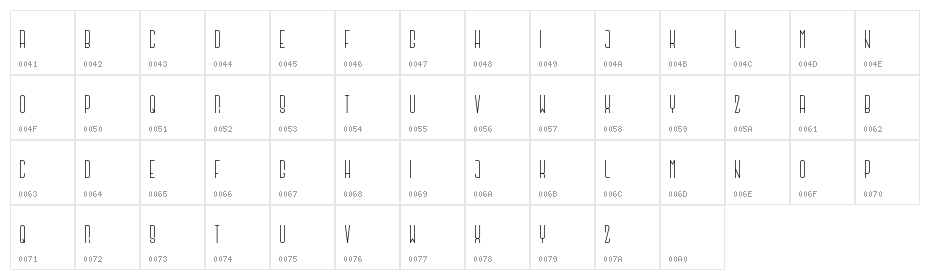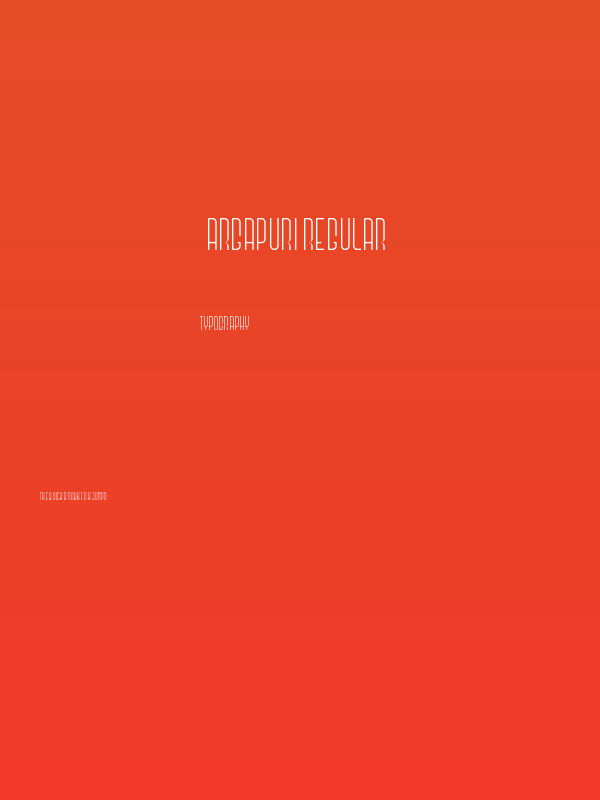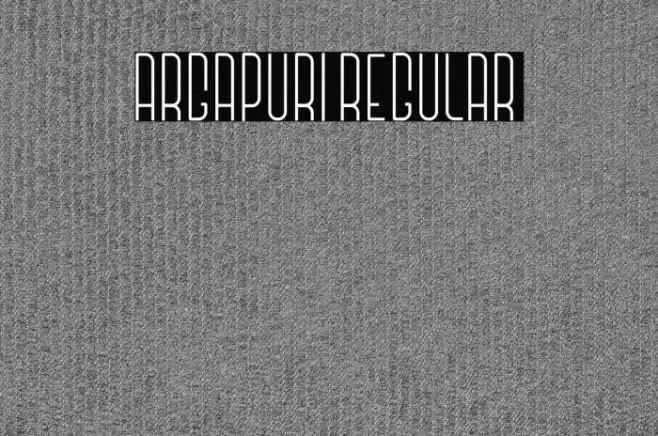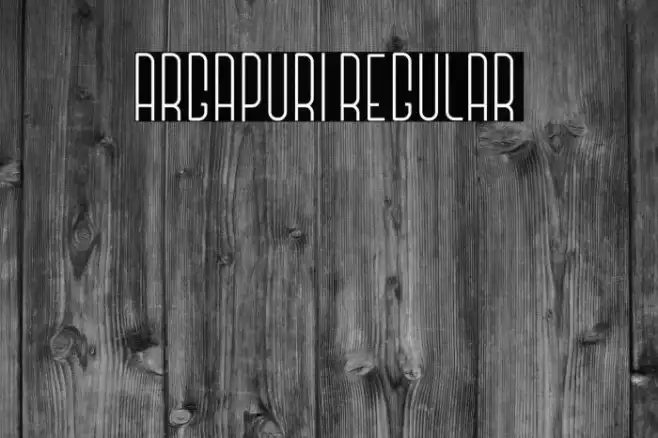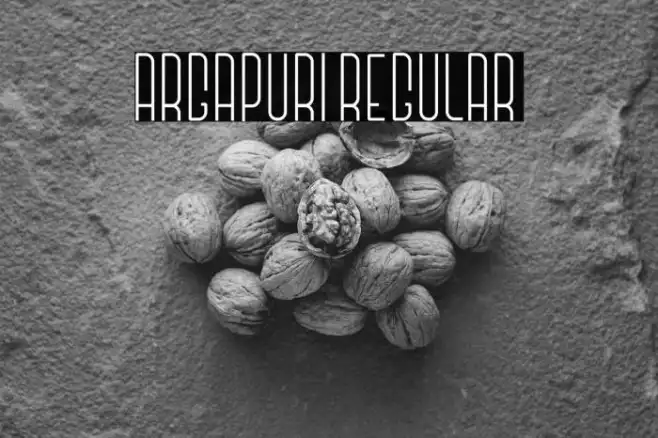
Argapuri Regular Font
Argapuri Regular Description
This font features a unique and modern design with a geometric and slightly condensed structure. The characters are tall and narrow, with consistent stroke widths that give it a clean and streamlined appearance. The uppercase letters exhibit a distinct style with angular edges and subtle curves, creating a futuristic and sophisticated look. The lowercase letters maintain the same geometric aesthetic, ensuring uniformity across the typeface. The numerals are designed to match the overall style, providing a cohesive visual experience. This font is ideal for projects that require a contemporary and stylish touch.